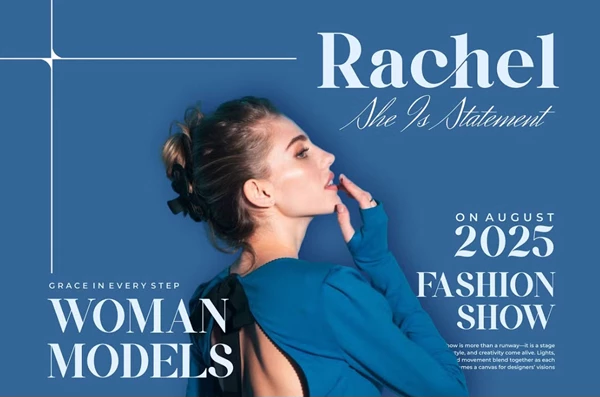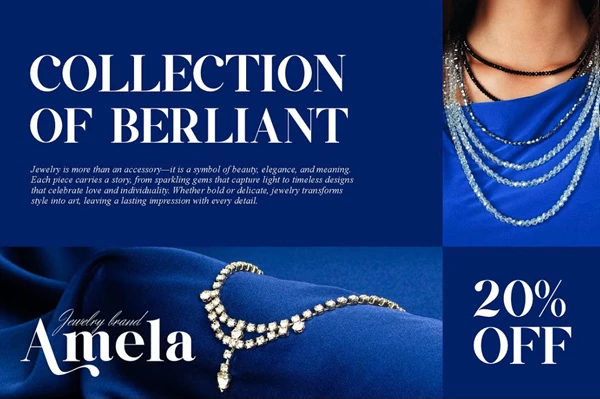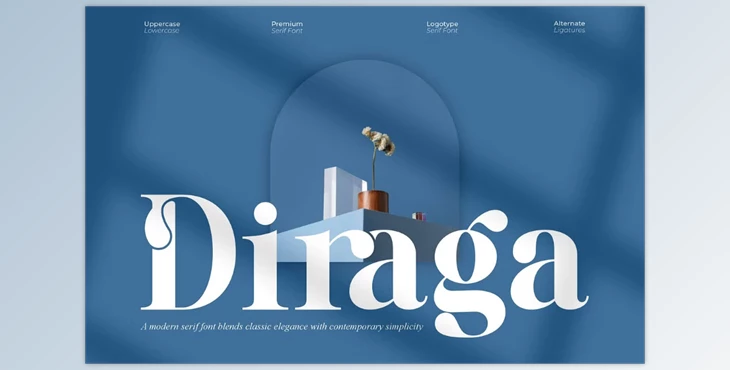
Diraga || Modern Serif Font:
Diraga Serif is a modern and elegant font family that is the perfect addition for a touch of class in your branding and logo designs. It's an elegant typeface that seems ideal for projects like business cards, book covers, invitation cards, logo creations, and film titles. Its legibility and modern, stylish presence make it a great all-purpose font option for unique serif needs.
Some great features of Diraga || Modern Serif Font:
- Ligatures
- Uppercase and lowercase options
- Number and punctuation options